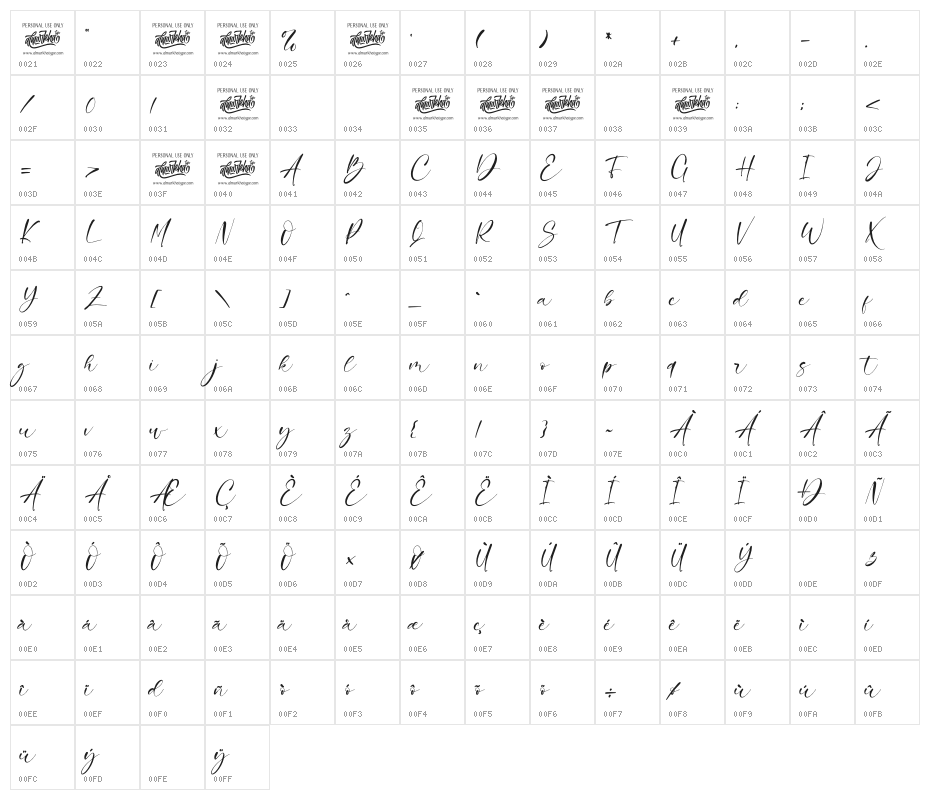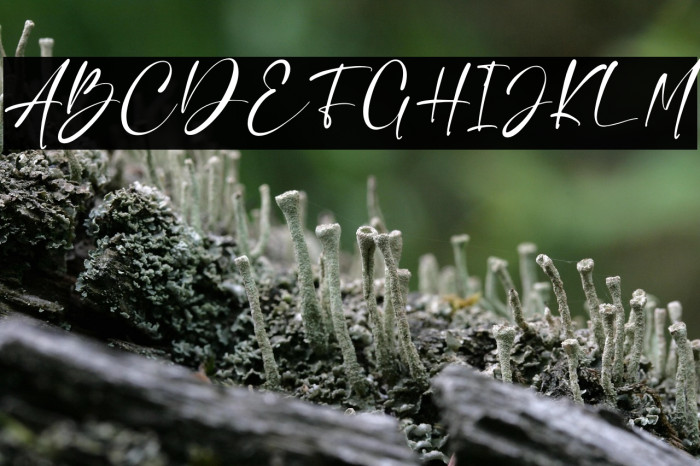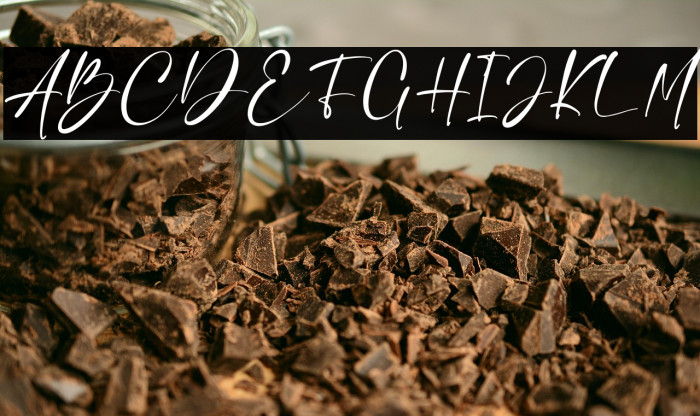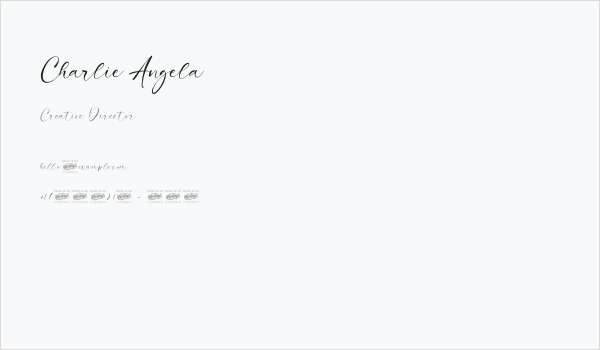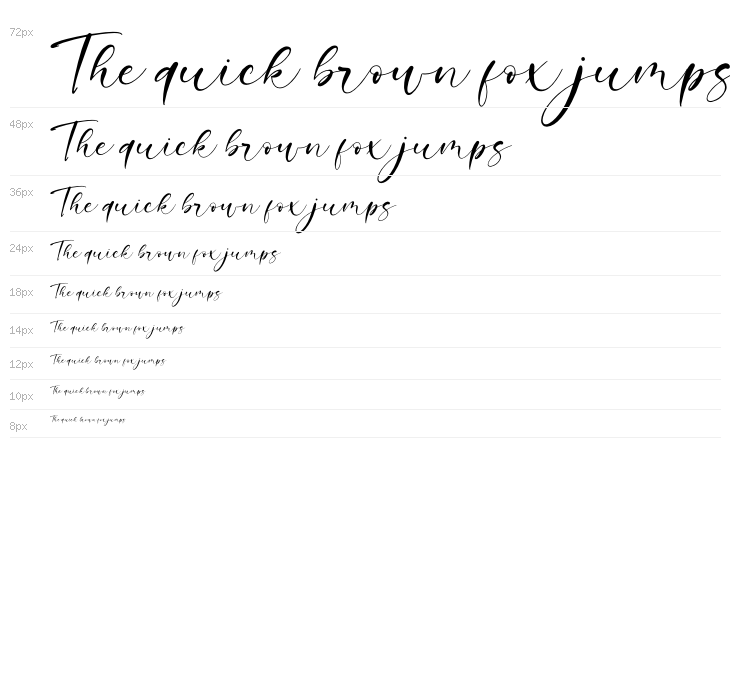
Charlie Angela Font
Charlie Angela Description
This elegant script font features a fluid and graceful design, characterized by its sweeping curves and delicate strokes. The uppercase letters are bold and expressive, with a distinct flair that adds a touch of sophistication. The lowercase letters maintain a consistent flow, enhancing readability while preserving the font's artistic style. The numerals and special characters are crafted with the same attention to detail, ensuring a cohesive look across all text. This font's overall appearance is both modern and timeless, making it suitable for a variety of creative applications.
| Overall Style | Elegant, Modern |
| Proposed Projects | Ideal for wedding invitations, branding, logo design, and elegant stationery. |